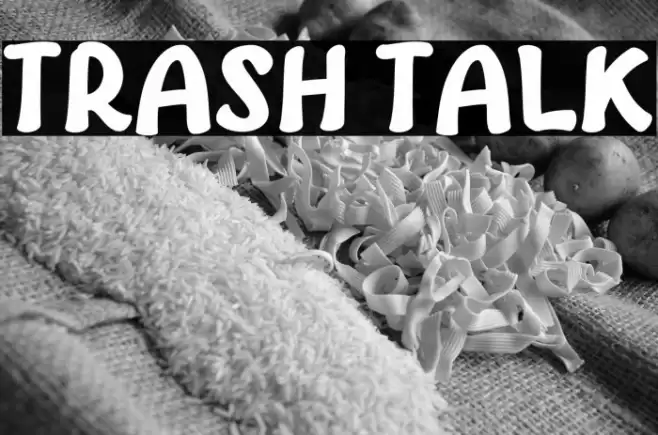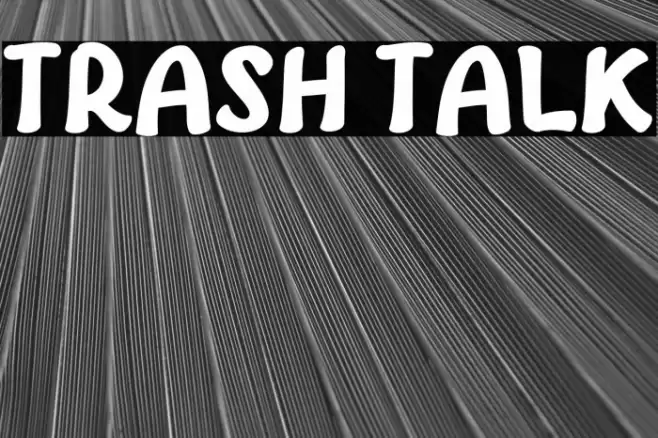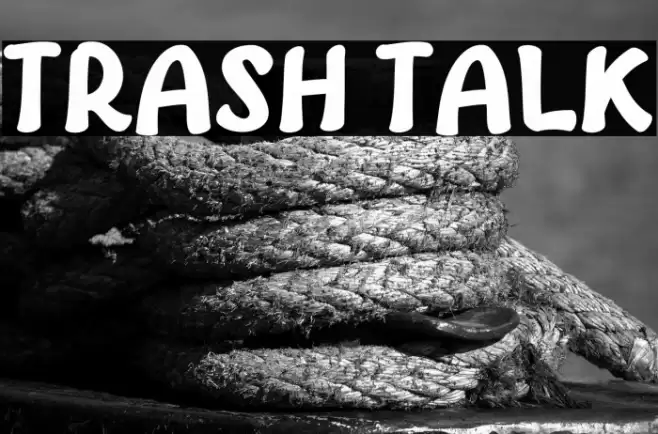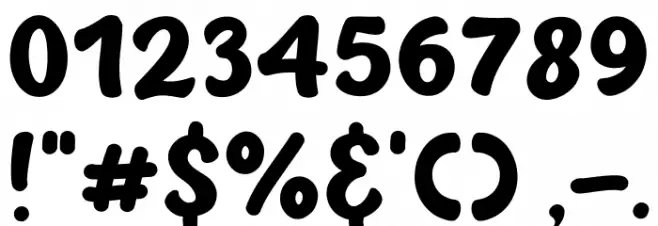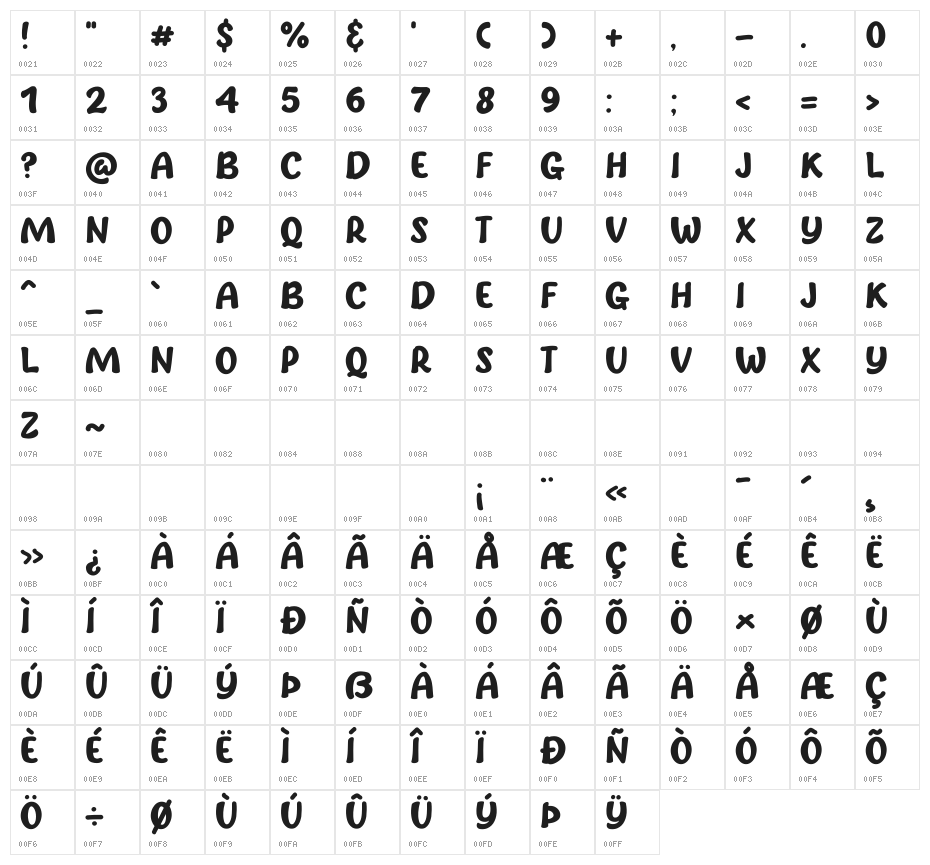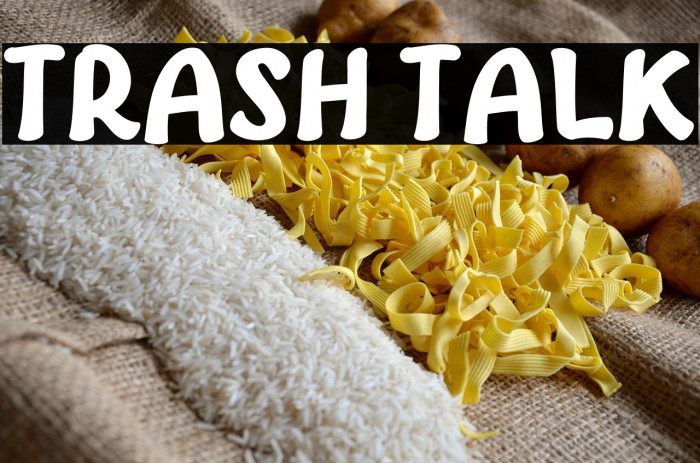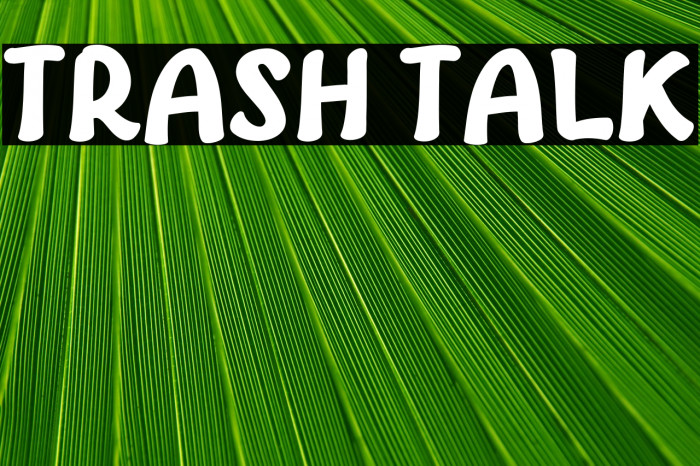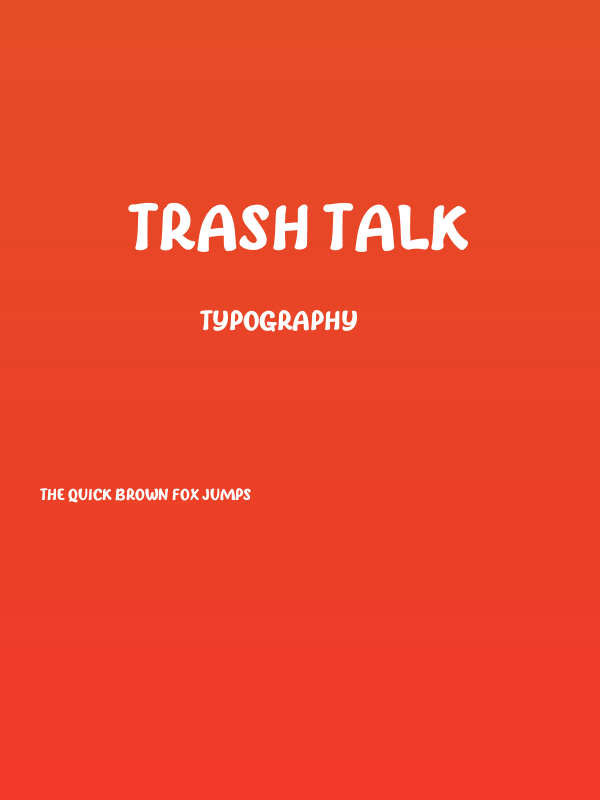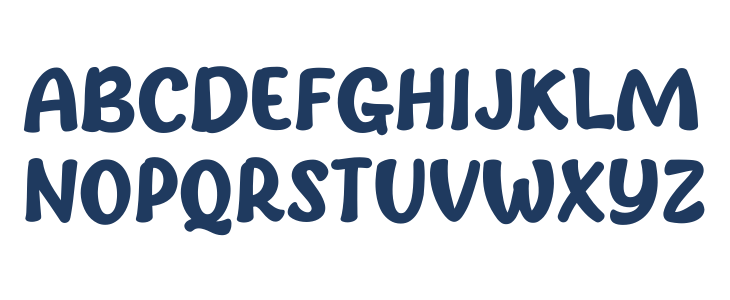
Trash Talk Font
Trash Talk Description
This font features a playful and bold style with rounded edges and a slightly irregular baseline, giving it a hand-drawn appearance. The characters are thick and consistent in weight, providing a strong visual impact. The uppercase and lowercase letters maintain a uniform height, enhancing readability while retaining a casual and informal vibe. The numerals and special characters are designed to match the overall style, ensuring cohesion across all elements. This font is ideal for projects that require a fun and approachable aesthetic.
A bold, playful font with rounded edges and a hand-drawn look from Uncategorized fonts.
- Proposed Projects: Perfect for children's books, playful branding, casual invitations, and social media graphics.
- Overall Style: Playful